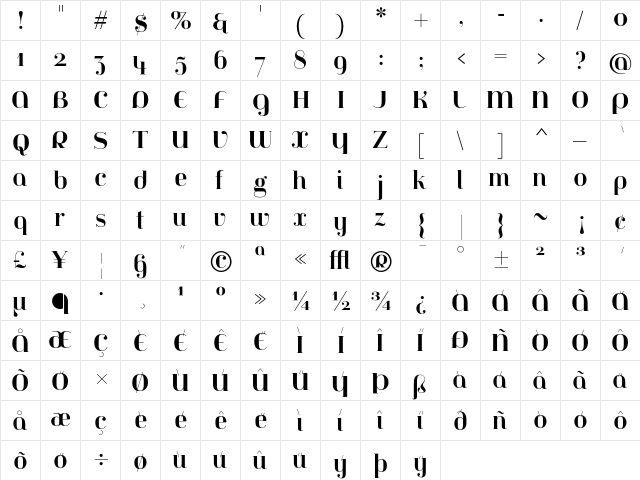
Jeanne Moderno OT Bold
| Foundry | Steve Mehallo |
| Designer | Steve Mehallo |
Design Context for Jeanne Moderno OT Typeface
Jeanne Moderno OT takes a measured approach to typography — its balanced proportions and neutral character make it a reliable workhorse for both digital and print work. The heavy weight commands attention and anchors typographic hierarchies.